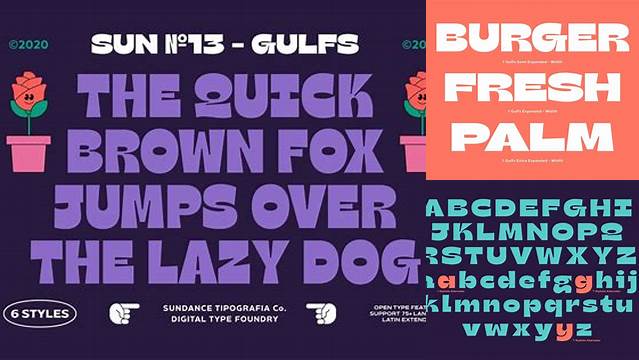
Free Gulfs Display Font: Download & Design Guide
Hey guys! Are you on the hunt for a cool, modern font that can make your designs pop? Look no further, because we're diving headfirst into the awesome world of the Gulfs Display Font Family, and the best part? You can snag it for free! This comprehensive guide will walk you through everything you need to know about this fantastic font – from its unique characteristics and how to download it, to how to use it effectively in your projects. Get ready to elevate your design game with Gulfs!
1. Unveiling the Gulfs Display Font: A Stylish Introduction
So, what exactly is the Gulfs Display Font Family? Think of it as a versatile, contemporary typeface designed to make a statement. It’s characterized by its clean lines, modern aesthetic, and a touch of elegance, making it suitable for a wide range of design projects. The font often includes multiple weights and styles, providing designers with flexibility to create different looks. Imagine it as a toolkit with various hammers, screwdrivers, and wrenches, all designed to achieve the same goal: a visually appealing design. Gulfs is typically a display font, meaning it is designed to be used at larger sizes, making it ideal for headlines, titles, and short pieces of text where impact is key. It’s the type of font that grabs attention and leaves a lasting impression. The design of Gulfs Display Font often prioritizes readability, ensuring that your message is clear and easily understood, even at a glance. Its modern appearance makes it suitable for a variety of design purposes. It's perfect for anything from website headers and posters to social media graphics and branding materials. This family of fonts often includes a variety of styles, such as regular, bold, italic, and condensed versions, giving you ample creative freedom. The versatility of the Gulfs Display Font Family is one of its most appealing characteristics, and the fact that you can get it for free just sweetens the deal. When choosing a font, remember to consider its personality and how it aligns with your project's goals. Gulfs offers a clean, modern look that works well in many contexts. This font embodies the spirit of modern design and offers a unique balance of style and functionality. You'll find it's an excellent choice for projects that need a touch of contemporary flair. Ultimately, the Gulfs Display Font is a fantastic choice, and the free download makes it even more accessible for everyone.
2. Core Features and Characteristics of the Gulfs Font
Let's dive a little deeper, shall we? The Gulfs Display Font Family isn't just about a pretty face; it boasts some specific features that make it stand out. First off, its design often emphasizes readability. Gulfs Display Font is crafted to be easily legible at larger sizes, making it perfect for headlines and titles. Its modern aesthetic contributes to a clean and professional appearance. The font's often comes in a variety of weights and styles, offering you versatility. You can choose from regular, bold, italic, and sometimes even condensed versions, allowing you to customize the look and feel of your text. Many variations of Gulfs Display Font are available, and these variations can be leveraged to enhance the user experience and overall aesthetic of your project. This adaptability makes it a favorite among designers. Another key characteristic is the font’s versatility. Gulfs Display Font is well-suited for a wide range of design projects. Whether you're designing a website, creating marketing materials, or working on a personal project, this font can adapt to your needs. The clean and modern design of Gulfs lends itself to various applications, from print to digital media. Many designers choose this family for its contemporary appeal, which gives a fresh and modern edge to your designs. The font's clean lines and balanced letterforms make it versatile. These are especially important in creating designs that are both visually appealing and easy to understand. Furthermore, Gulfs Display Font often boasts a distinctive personality, allowing your designs to stand out from the crowd. You'll love how it elevates the look of your projects.